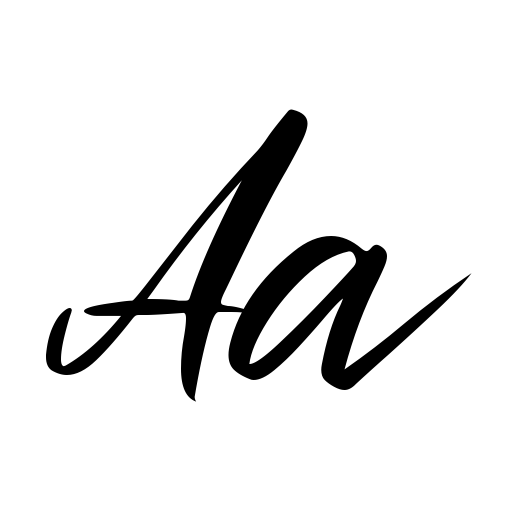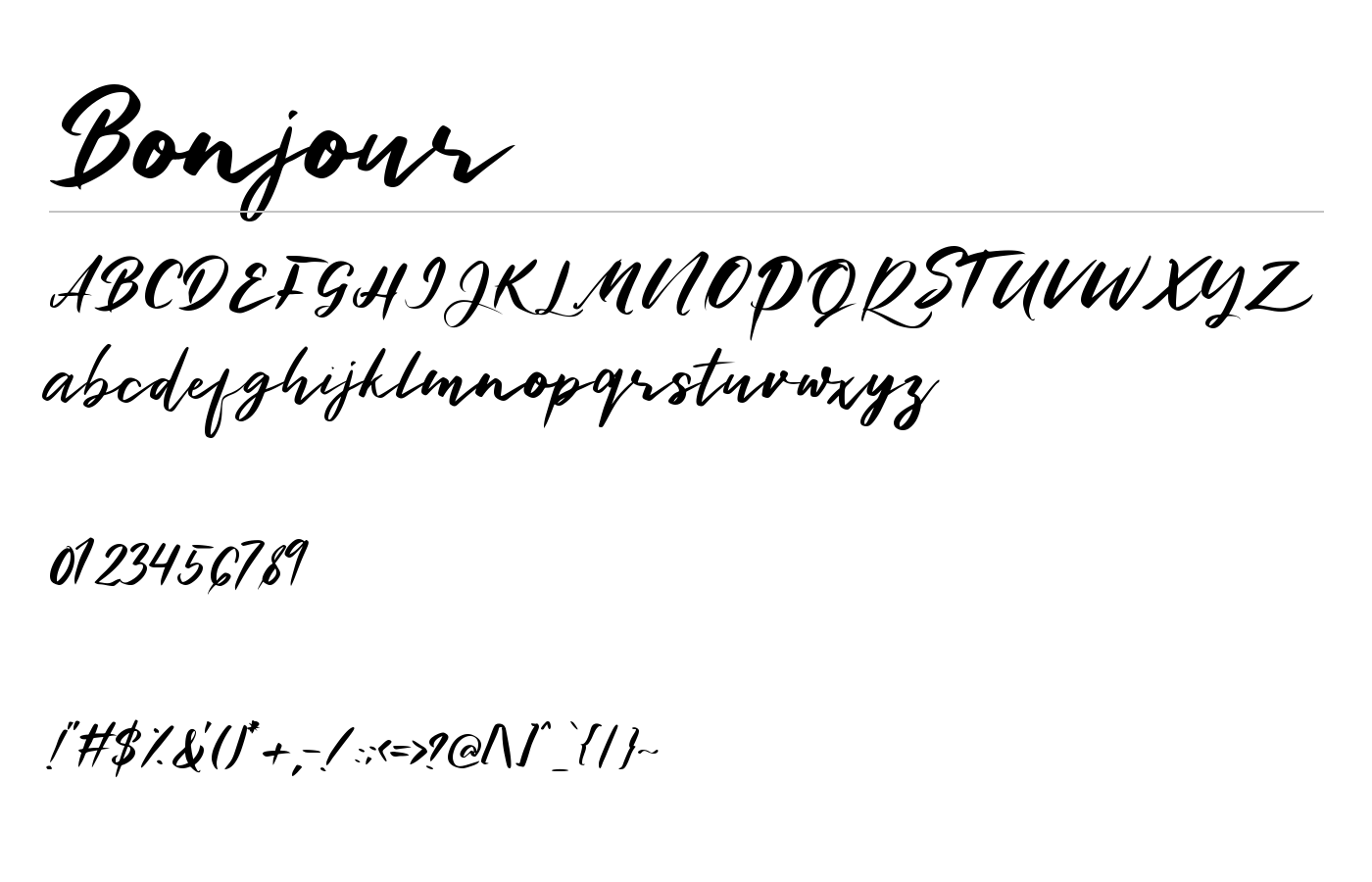
Bonjour is an elegant script font with a lively and flowing style, featuring smooth, varying stroke widths that mimic natural handwriting. Its graceful letterforms and slightly slanted characters convey a sophisticated yet accessible feel, making it ideal for branding, invitations, and creative projects that seek a personal, stylish touch. This font shines in settings where a warm, friendly, and refined impression is desired.
Bonjour Font
About Bonjour Font
| Font family | Bonjour Font |
| Designer | Dimas Prasetyo |
| Trademark | Dm Letter Studio Bandung - Indonesia |